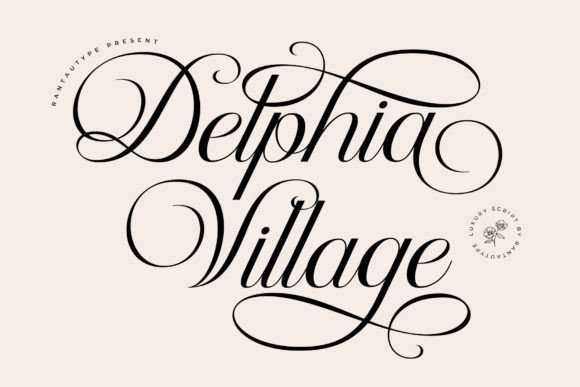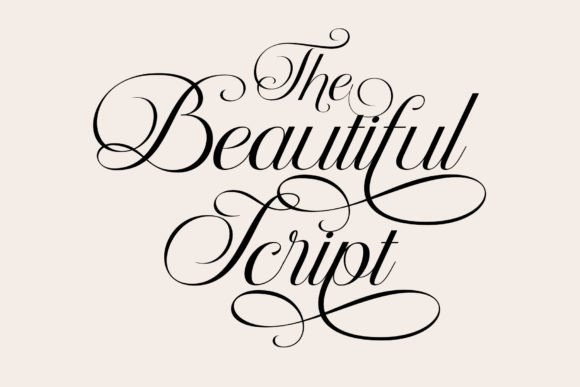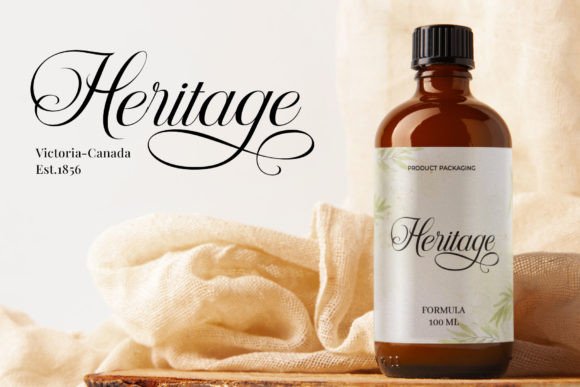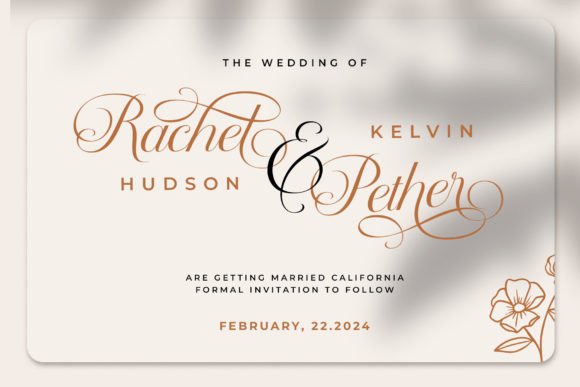
Delphia Village Font
About the Delphia Village Font
Get ready to be inspired by Delphia Village Font, a fresh and dynamic typeface for modern creators. Benitta is a beautiful choice for any creative endeavor, chic, lifestyle design such as logos, title, watermark on photography, cover, branding, display and magazine, wedding event, quotes, album cover, business card, corporate, business project and many other design projects.
Delphia Village is ideally suited for headlines, short text blocks, and branding applications where a touch of elegant sophistication is desired. Its refined character makes it perfect for logos, invitations, and packaging for high-end products. However, its intricate details make it less suitable for body copy or UI elements requiring high legibility at smaller sizes.
The font’s personality is best described as sophisticated and slightly playful; a touch of classic charm with a modern twist. This makes it a strong choice for brands aiming for a timeless yet contemporary image, such as boutique hotels, artisan food companies, or high-end fashion.
Pairing Delphia Village with a clean sans-serif like Lato for body text creates a balanced contrast. For a more traditional feel, consider pairing it with a classic serif like Garamond. Using a script font like Great Vibes as an accent would add a touch of handwritten elegance to select design elements.
Delphia Village Font Usage Examples
Delphia Village Font Example